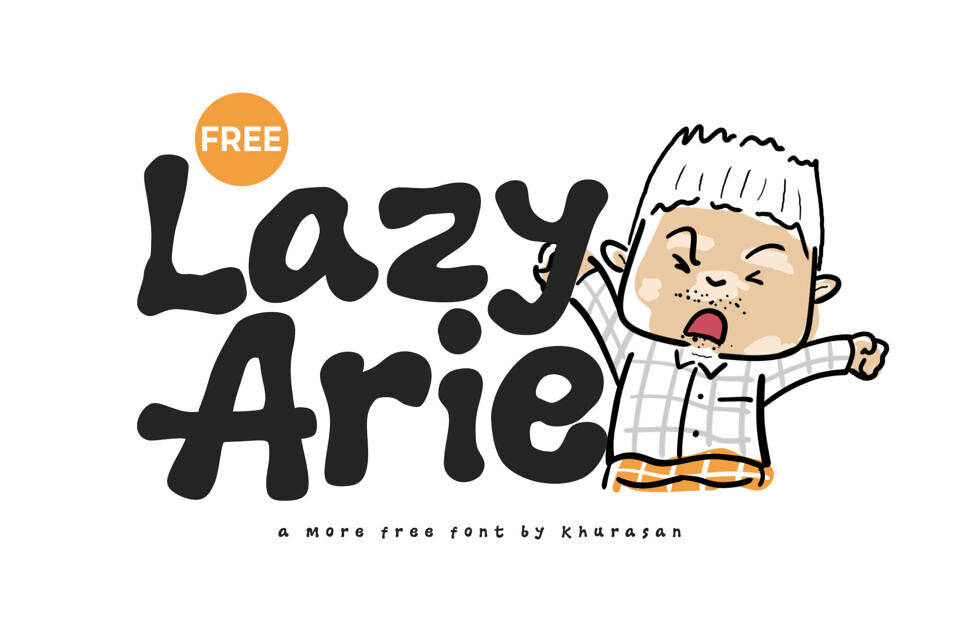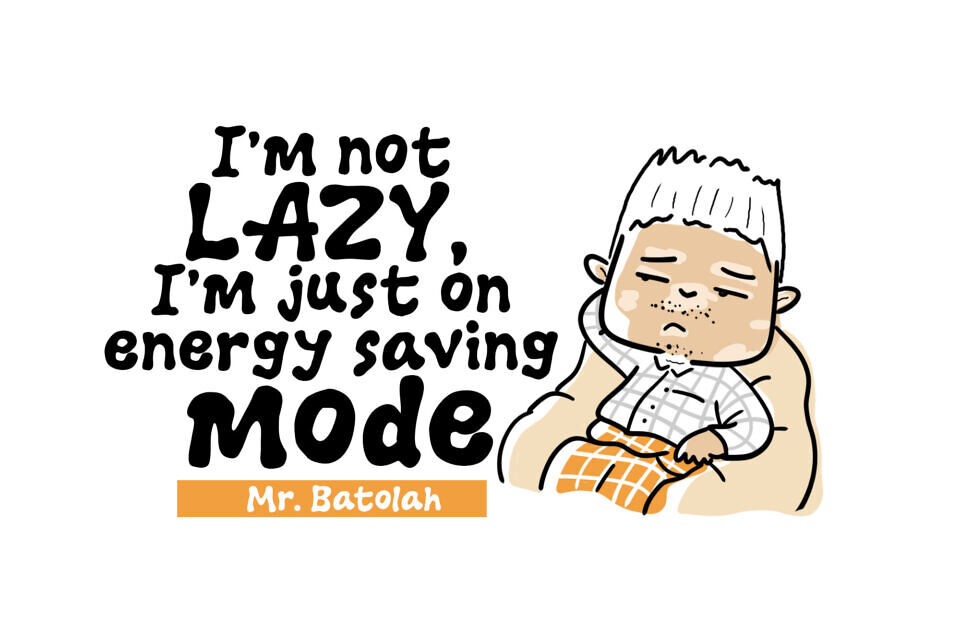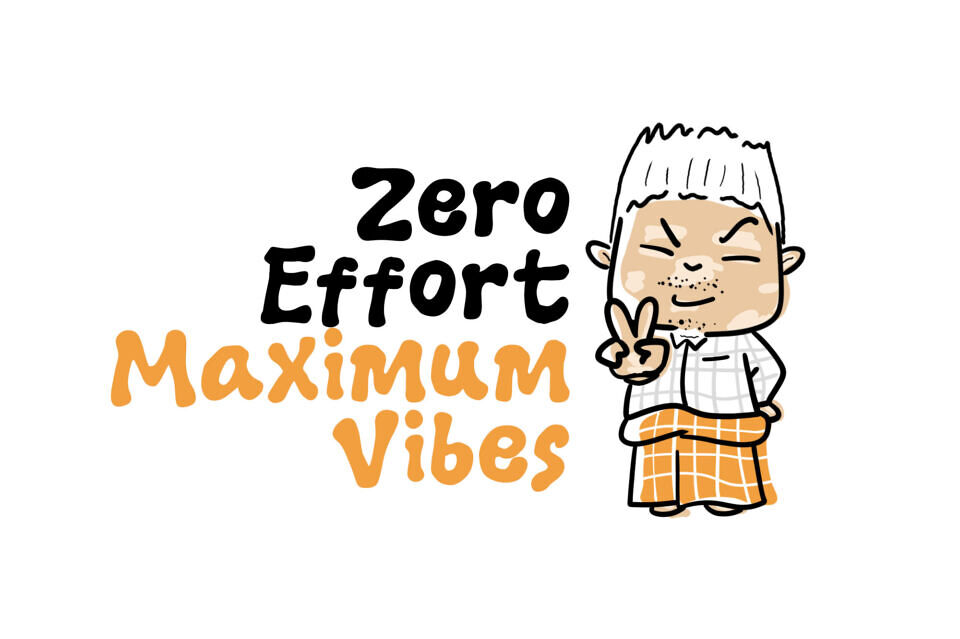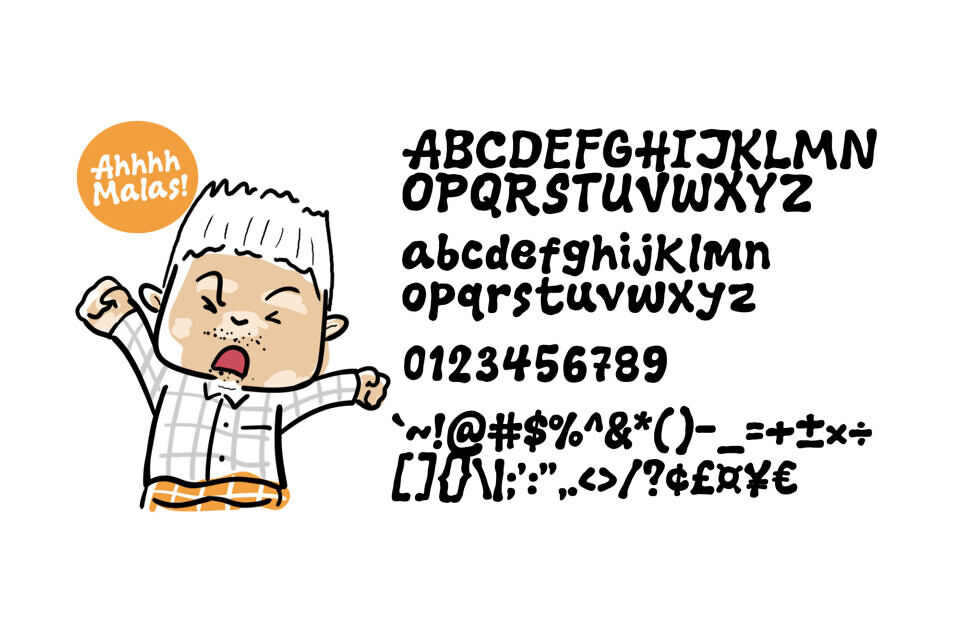
Looking for a font that doesn’t take itself too seriously? Lazy Arie is here to help! Inspired by casual doodles and bold marker sketches, this font adds a laid-back, handmade vibe to any design. Whether you’re making a birthday card or a cool t-shirt, Lazy Arie makes it look effortless.